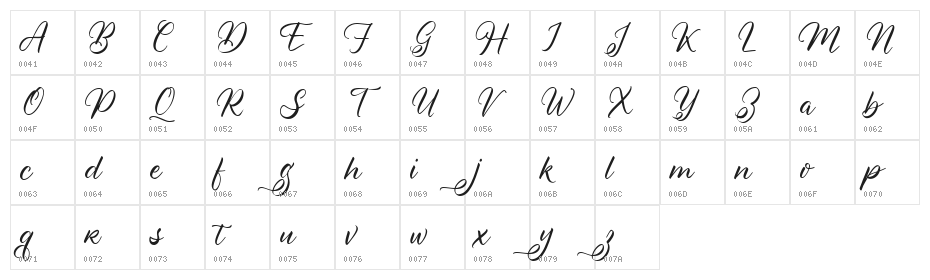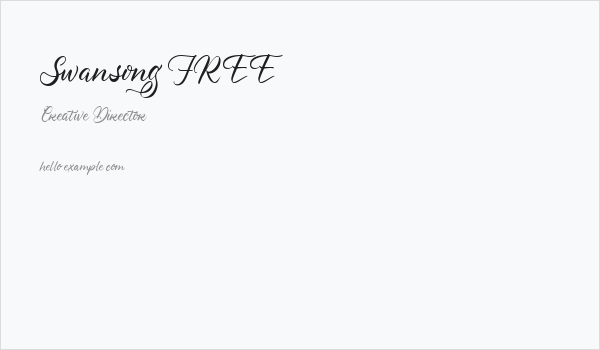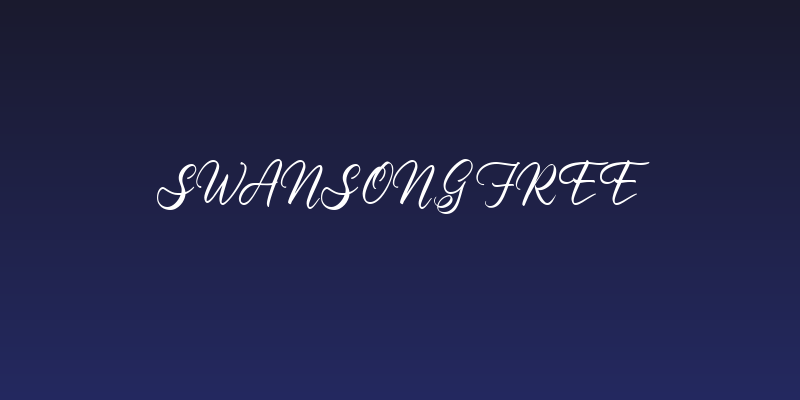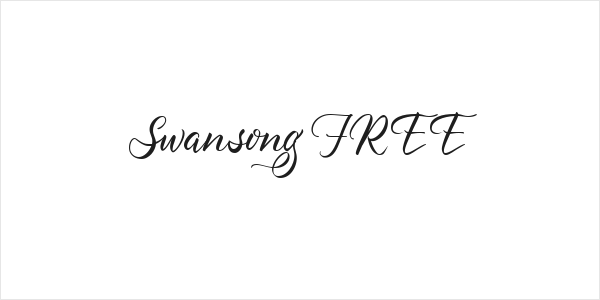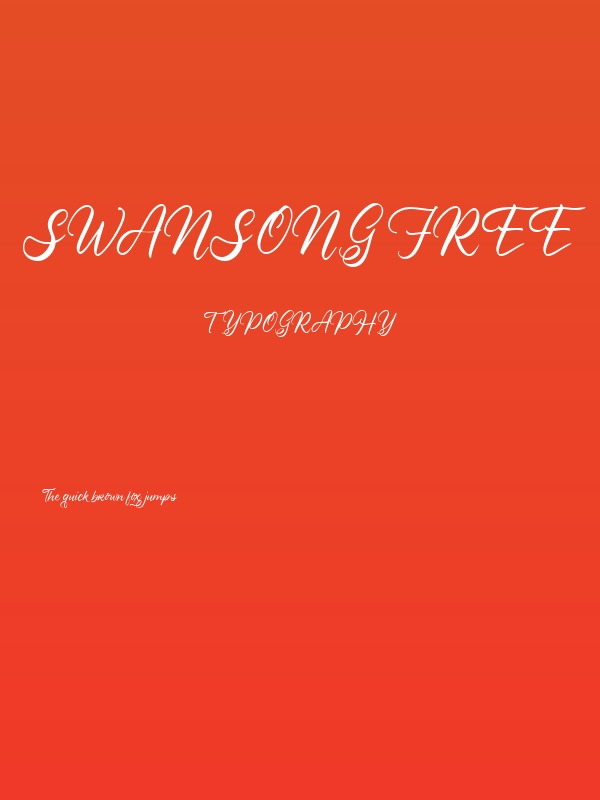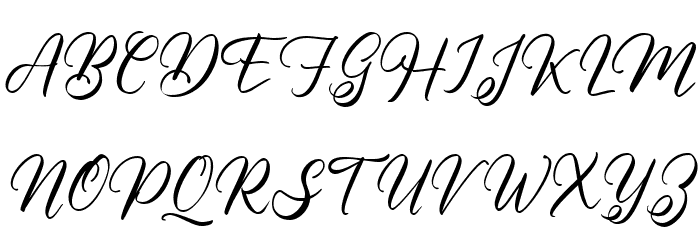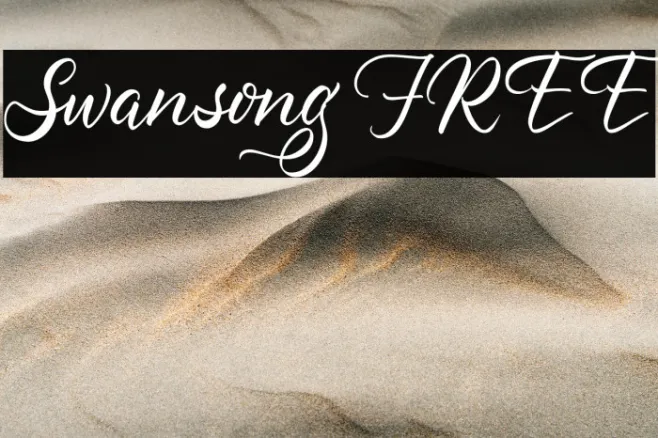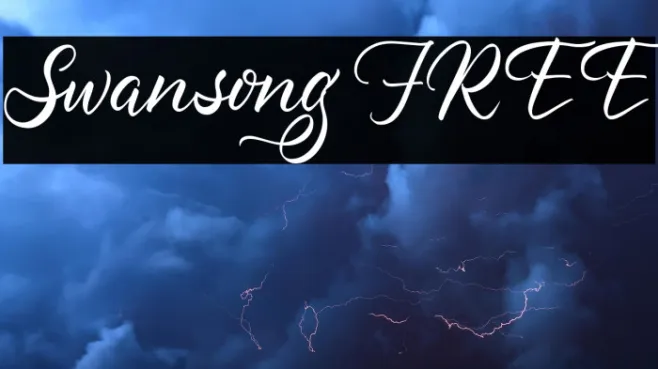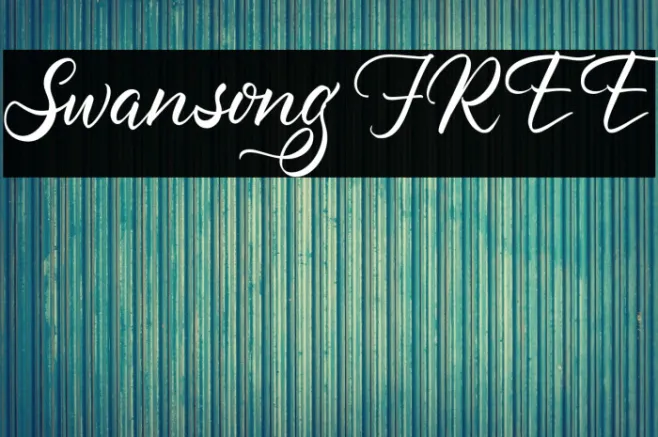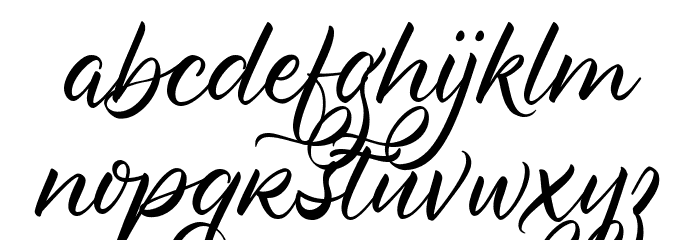
Swansong FREE Font
Swansong FREE Description
This font features an elegant and flowing script style, characterized by its cursive, handwritten appearance. The uppercase letters are gracefully connected, with sweeping curves and loops that add a sense of movement and sophistication. The lowercase letters maintain a consistent flow, with some characters featuring distinctive flourishes that enhance the overall aesthetic. The font's design is both decorative and legible, making it suitable for a variety of creative applications. Its fluid strokes and balanced proportions contribute to its timeless appeal, making it a versatile choice for projects that require a touch of elegance and style.
| Proposed Projects | Ideal for wedding invitations, greeting cards, branding, and elegant logos. |